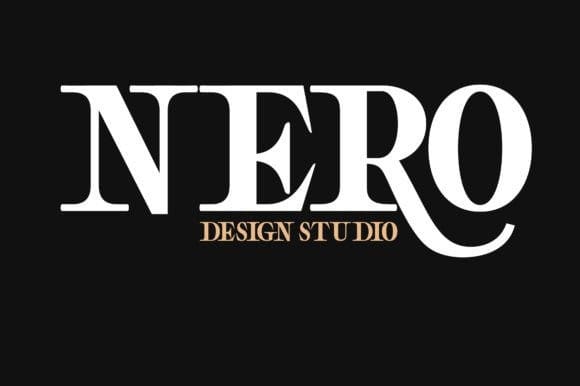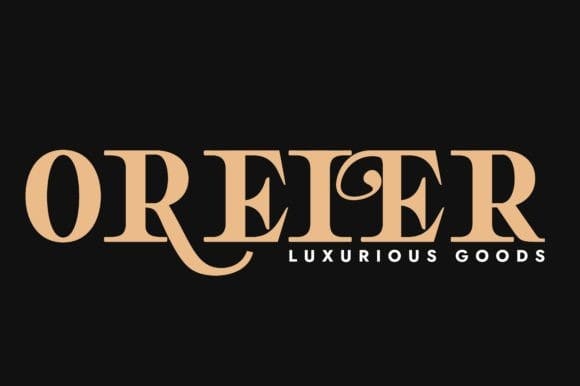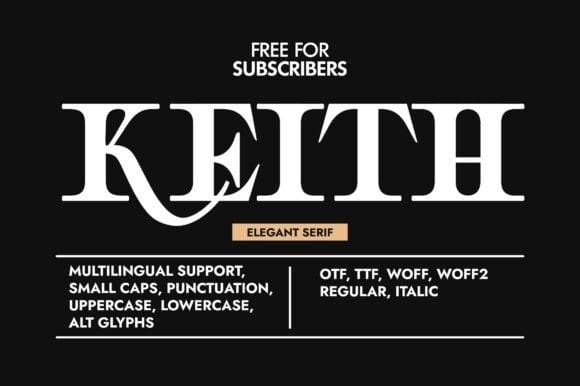
Keith Pro Font
Keith Pro Font is an extremely romantic, beautiful, elegant, and chic serif typeface. The contrast added between the sharp exterior glyph structure and the smooth interior glyph space or emptiness contributes to adding exceptional elegance to the final aspect of every character. It can be used in luxurious and elegant design themes such as luxurious packaging design, jewelry, fashion house, romantic film titles, luxury goods merchandise, etc.